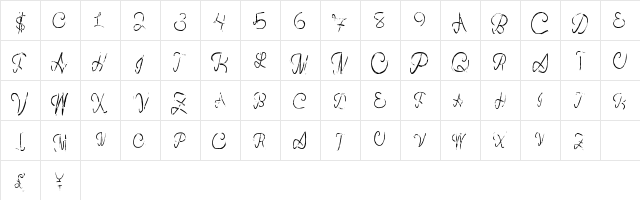
NorthCowboy Regular
Design Context for NorthCowboy Typeface
NorthCowboy echoes the hand-painted signage and woodblock typography of the American frontier, with a warm, rugged personality.
Perfect for barbecue restaurants, country music branding, vintage poster design, and rustic packaging.
Font Pairing: Combine NorthCowboy with a simple slab or neutral sans — period-accurate companions reinforce the vintage feel without competing for attention.
Pro Tip: Pair NorthCowboy with aged textures or distressed backgrounds to amplify its vintage personality.